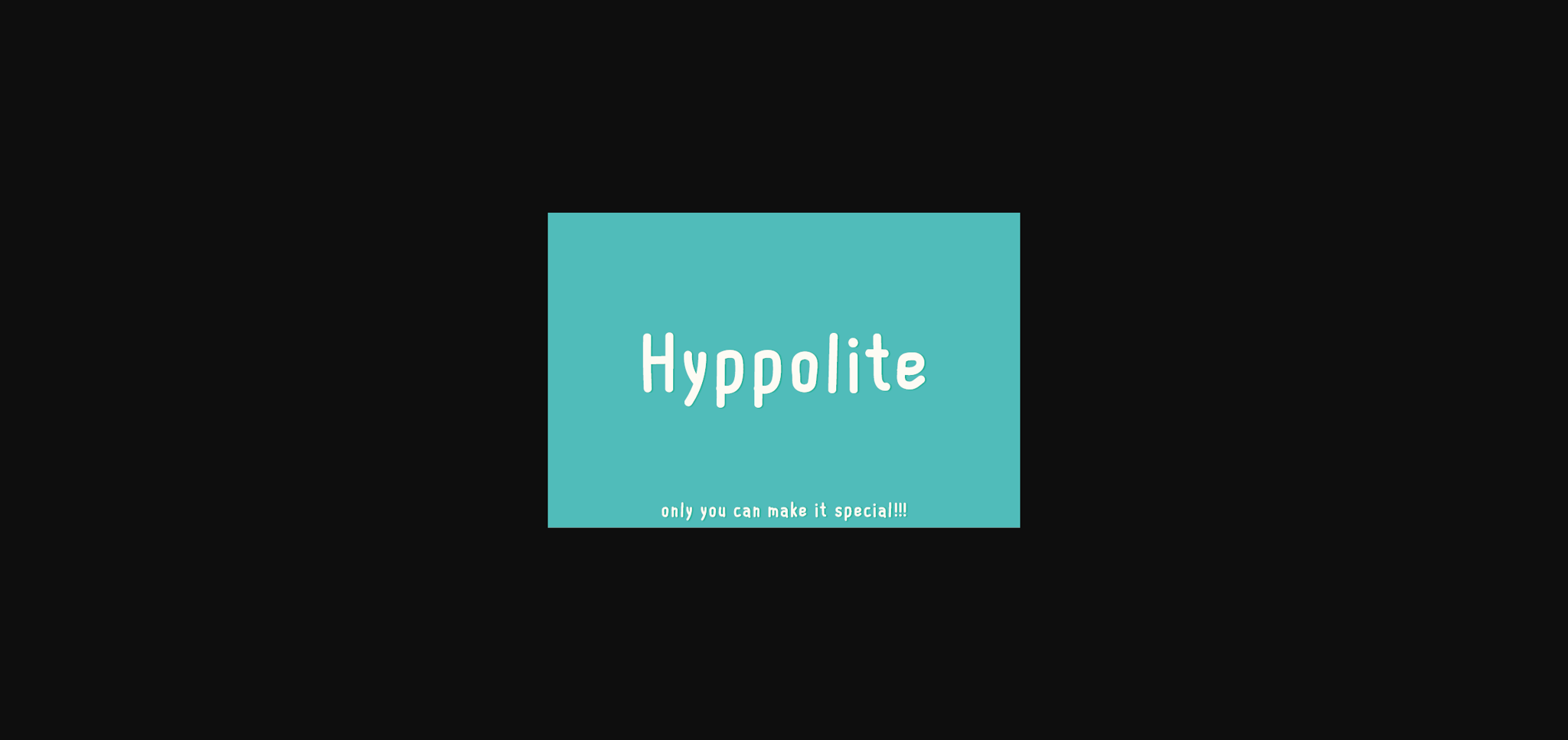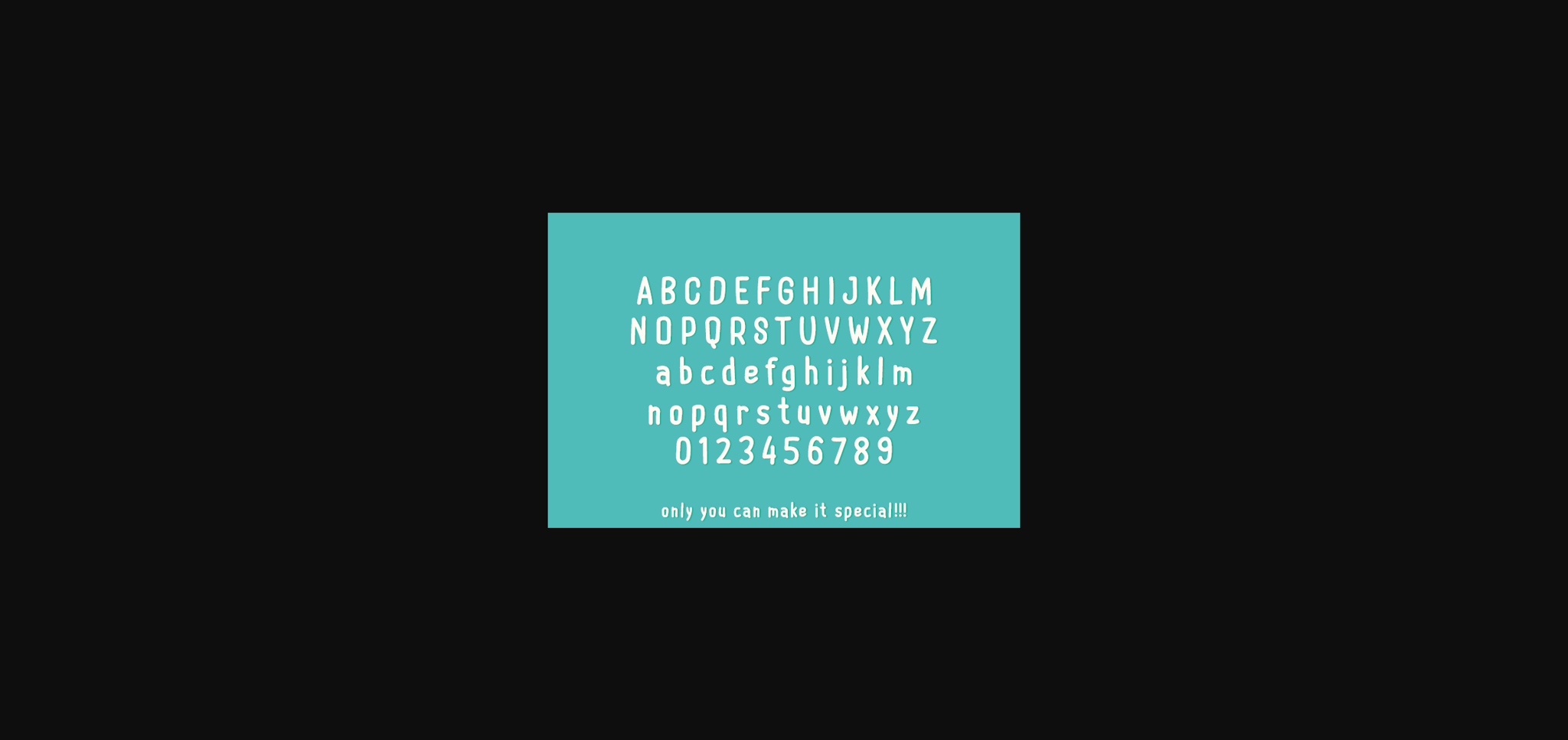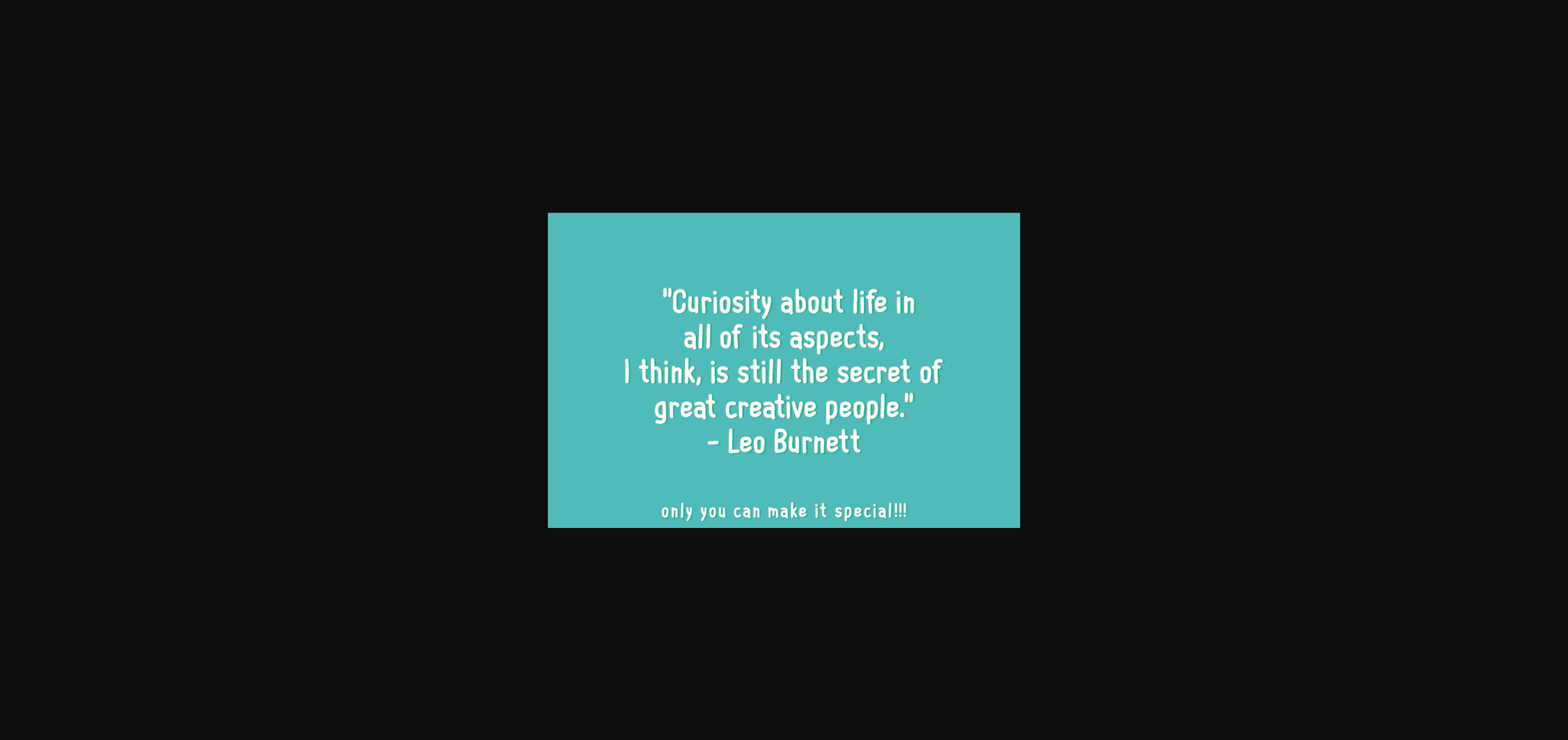
About Hyppolite Font
Hyppolite is a natural sans serif font made without changing a single node in each character’s indentation – this makes this font very interesting and unique. Perfect for quotes, notes, tees, and any product design.